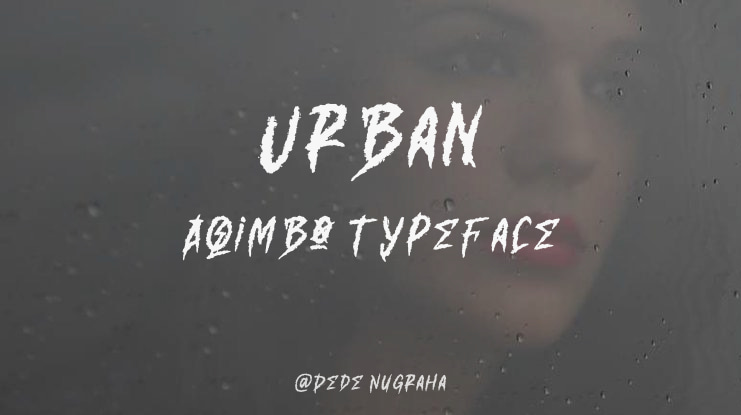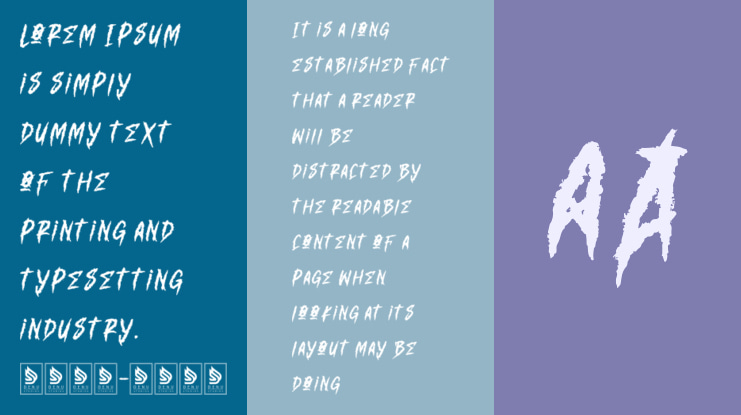
Urban Aqimbo | Hand Drawn Brush is suitable for any projects such as: logos, branding projects, homeware designs, product packaging, mugs, quotes, posters, shopping bags, t-shirts, book covers, name card, invitation cards, greeting cards, label, photography, watermark, special events, and all your other lovely projects that need a Hand Drawn Brush taste.